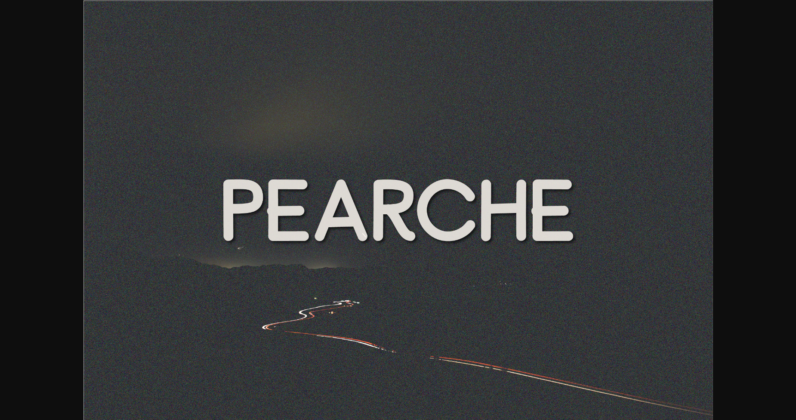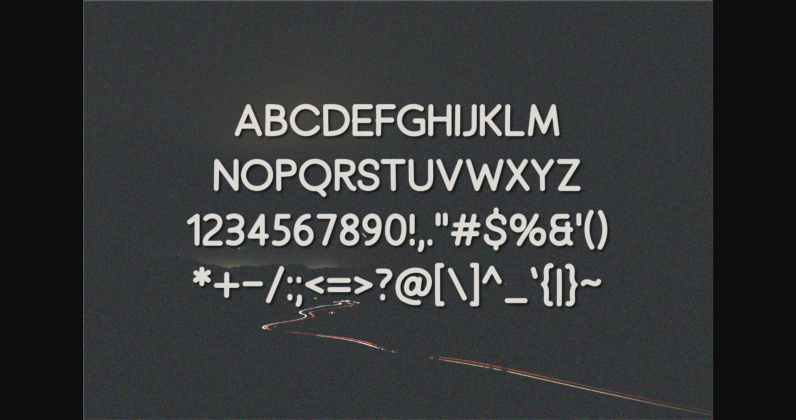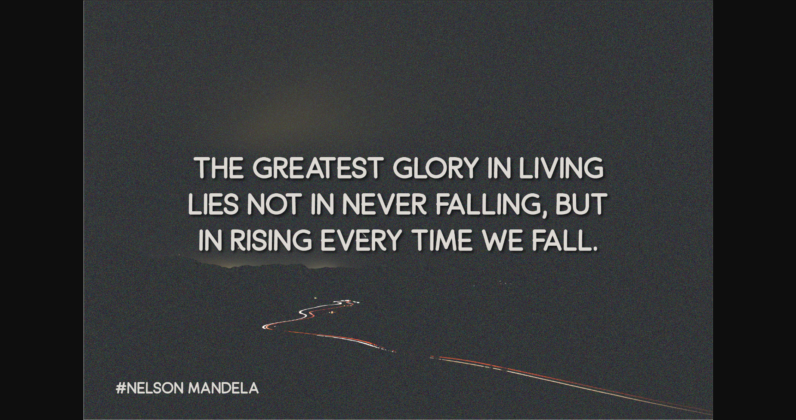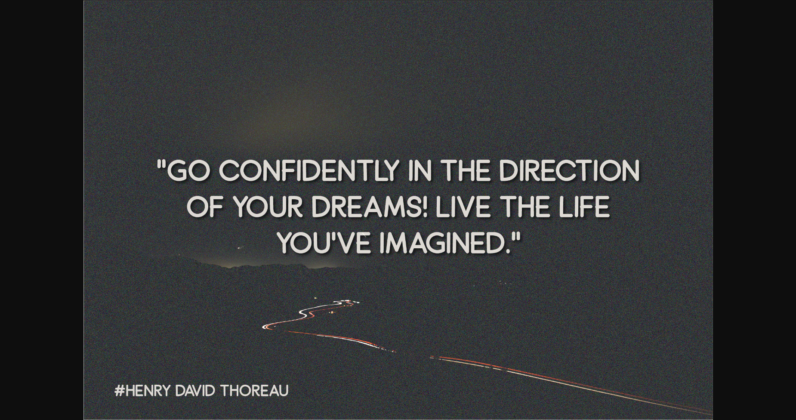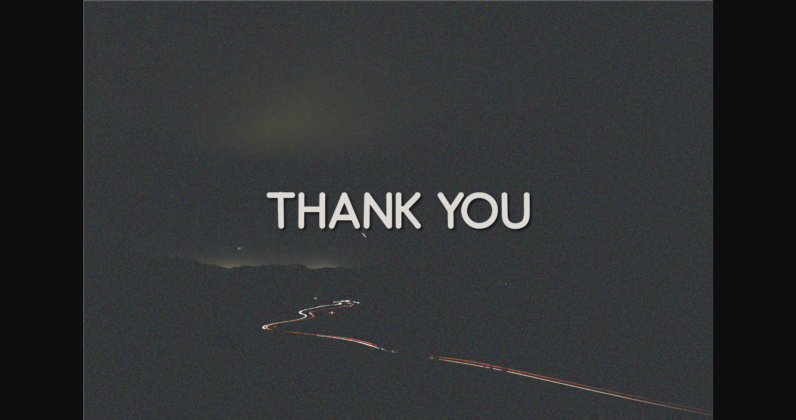
HomeSans Serif FontsPearche Font Sans Serif Fonts Pearche Font FacebookTwitterPinterestWhatsApp 1 of 7 ... Pearche Font Poster 2... Pearche Font Poster 3... Pearche Font Poster 4... Pearche Font Poster 5... Pearche Font Poster 6... Pearche Font Poster 7... About Pearche Font Pearche is a quirky all-caps font made up of capital letters. This font is perfect for social media or crafty projects. Simple and smooth perfect for crafting, t-shirts, decals, cards, invitations and so much more. DOWNLOAD NOW People also explored Artisoul Font Night History Font The Minthline Script Font Onboard Font Monday Font Kindness & Coffee Font Opera House Farmhouse Sign Mockup Mock-Up Shogun Font 172 0 TagsPearchePearche Font Previous articleFebruary FontNext articleNectarines Font LEAVE A REPLY Cancel reply Comment: Please enter your comment! Name:* Please enter your name here Email:* You have entered an incorrect email address! Please enter your email address here Website: Save my name, email, and website in this browser for the next time I comment. Personal Use Free Mike Ferrari 16017 Personal Use Free Read more about this font Hollster Personal Use Free Read more about this font Tide Personal Use Free Read more about this font Stone Cold Personal Use Free Read more about this font BLOG Using Fonts in Digital Marketing: Tips to Strengthen Your Brand Identity In the realm of digital marketing, every visual element plays a crucial role in shaping a brand's identity, and fonts are no exception. The... Free vs Paid Fonts: Why Investing in Premium Fonts Is Worth It Best Fonts for T-Shirt Design – Top 2025 Picks Exploring Font Trends